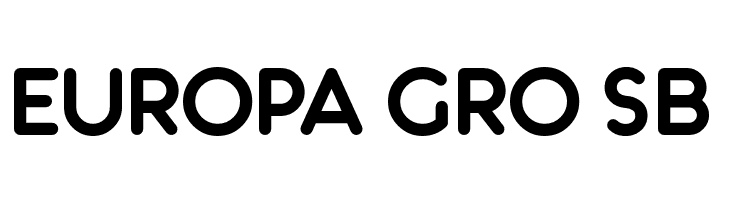
A playful, festive script font with elegant loops and holiday-themed elements.
A pixelated, retro-style font with a blocky, digital appearance.
A playful, bold font with thick, rounded, outlined letters.
A playful, bold font with rounded, thick strokes and a whimsical touch.
A bold, playful font with a hand-drawn, irregular style.
A bold, decorative font with circular cutouts, reminiscent of vintage Western styles.
A whimsical, hand-drawn font with a playful and cartoonish style.
A modern, high-contrast font with sleek, elongated characters and artistic flair.
A bold, playful font with rounded edges and a chunky design.
A playful, chunky block font with a hand-drawn, whimsical style.
A display font made up of church-themed pictograms.
A medieval-inspired font with sharp serifs and curved strokes, offering a bold and elegant appearance.
A modern, geometric font with sleek, rounded edges and consistent height.
A clean, modern font with smooth, rounded strokes and excellent readability.
A playful, hand-drawn script font with interconnected characters and a whimsical style.
A geometric, minimalist font with thin lines and consistent stroke width.
A glitch-inspired font with bold, distorted characters and a digital aesthetic.
A bold, circular font with high contrast and playful style.
A playful, decorative font with circus-inspired embellishments.